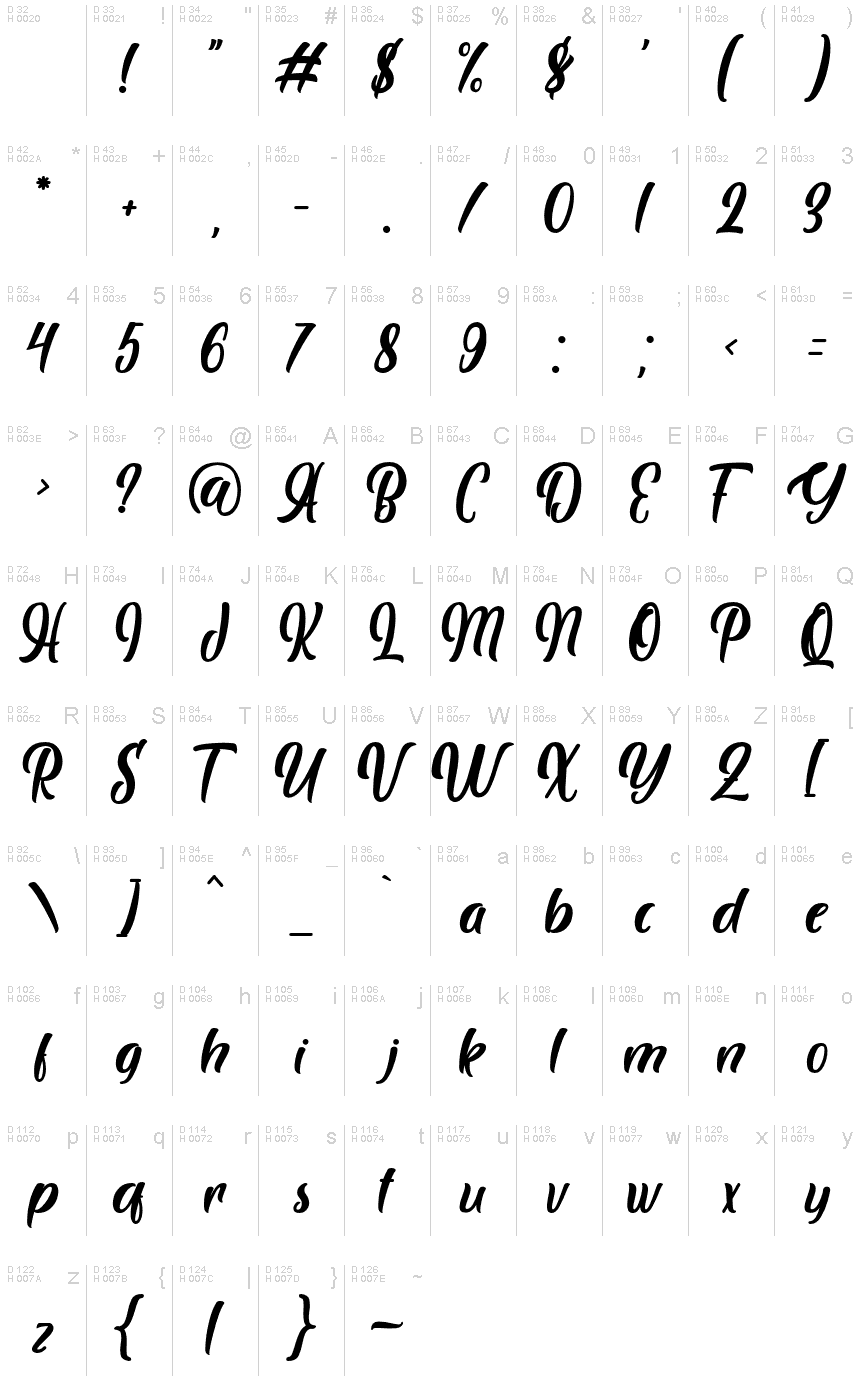
Brogads
Brogads, a smooth brush font designed by StringLabs Creative Studio, exudes creativity and elegance. With its semi-condensed width, it offers a perfect balance of readability and style. Ideal for fashion magazines, luxury branding, and artistic websites, this font adds a touch of sophistication to any project. From wedding invitations to creative advertisements, Brogads effortlessly captures attention with its flowing strokes and refined curves. Let your designs stand out with this versatile typeface that brings a harmonious blend of modernity and grace to the forefront.